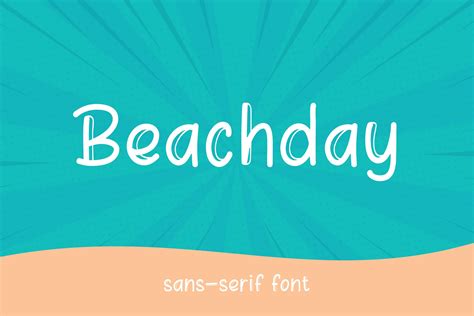
Hey guys! Are you on the hunt for a font that screams fun, sunshine, and carefree vibes? Look no further! The Beachday font family is here to inject some serious personality into your designs. And the best part? You can snag it for free ! Let’s dive into why this font family is a must-have for your creative arsenal.
What Makes the Beachday Font Family So Awesome?
The Beachday font family isn’t just another typeface; it’s a whole mood. Imagine strolling along the beach with the sun on your skin and a gentle breeze in your hair – that’s the feeling this font evokes. Its playful, slightly whimsical design makes it perfect for a wide range of projects, from posters and invitations to logos and social media graphics. The unique character of the Beachday font stems from its hand-drawn aesthetic, giving it a personal and approachable feel. This is especially important in a digital world where authenticity is highly valued. Using this font can instantly make your project feel more relatable and engaging. Furthermore, the font’s rounded edges and soft curves contribute to its friendly and inviting appearance, which is ideal for designs aimed at capturing attention and creating a positive emotional response. This makes it a versatile choice for various branding and marketing efforts, as well as personal creative projects where a touch of warmth and character is desired. Whether you’re designing a logo for a surf shop or creating invitations for a summer party, the Beachday font is designed to bring a touch of light-heartedness and charm to your work.
But what really sets the Beachday font family apart is its versatility. It typically includes a variety of weights and styles, allowing you to create a cohesive look across all your design materials. Whether you need a bold, attention-grabbing headline or a delicate, easy-to-read body text, the Beachday font family has you covered. Beyond just the standard styles, the font family often incorporates stylistic alternates and ligatures, adding a layer of sophistication and uniqueness to your typography. Stylistic alternates offer different versions of individual characters, providing subtle variations that can be used to fine-tune the overall look and feel of your text. Ligatures, on the other hand, combine two or more characters into a single glyph, which can improve readability and create a more polished appearance. These features enable designers to achieve a more refined and professional aesthetic, while still maintaining the font’s inherent playfulness. The availability of multiple weights ensures that the font can be adapted to a wide range of design contexts, from print to digital, and can be used effectively for both display and body text. This adaptability makes the Beachday font family an invaluable asset for any designer looking to add a touch of personality and charm to their projects.
Where Can You Use the Beachday Font?
The possibilities are endless! Here are just a few ideas to get your creative juices flowing:
• Invitations: Planning a beach party, luau, or summer wedding? The Beachday font is perfect for setting the tone.
• Posters: Create eye-catching posters for events, promotions, or just to add some flair to your walls.
• Logos: If you’re starting a business with a fun, relaxed vibe, this font could be the perfect choice for your logo.
• Social Media Graphics: Stand out from the crowd with engaging social media posts that capture attention.
• T-shirts: Design custom t-shirts with a unique and playful font.
Imagine using the Beachday font to create a poster for a local surf competition. The bold, playful letters would immediately grab attention, while the rounded edges and soft curves would convey a sense of fun and excitement. Or picture designing a logo for a beachside cafe, where the font’s relaxed and approachable style perfectly reflects the cafe’s laid-back atmosphere. For social media, the Beachday font can be used to create engaging graphics that stand out from the endless scroll of content, attracting followers and boosting engagement. The font’s versatility extends to print materials as well, making it a great choice for brochures, flyers, and other marketing collateral. No matter the project, the Beachday font can help you achieve a unique and memorable look that resonates with your target audience.
Moreover, consider how the Beachday font can be used in educational settings. Teachers can use it to create engaging worksheets, posters, and presentations that capture students’ attention and make learning more fun. The font’s friendly and approachable style can help create a positive learning environment, especially for younger students. Therapists and counselors can also use the Beachday font in their materials to create a welcoming and non-threatening atmosphere for their clients. The font’s playful design can help put people at ease and encourage open communication. In the healthcare industry, the Beachday font can be used to create informational brochures and posters that are easy to read and understand, promoting health and wellness in a friendly and accessible way. The font’s versatility and adaptability make it a valuable asset for a wide range of industries and applications, extending far beyond just creative design projects.